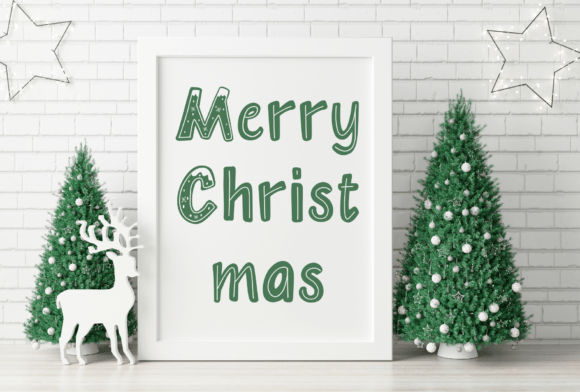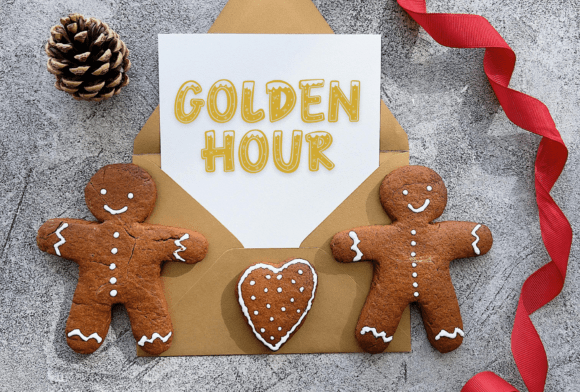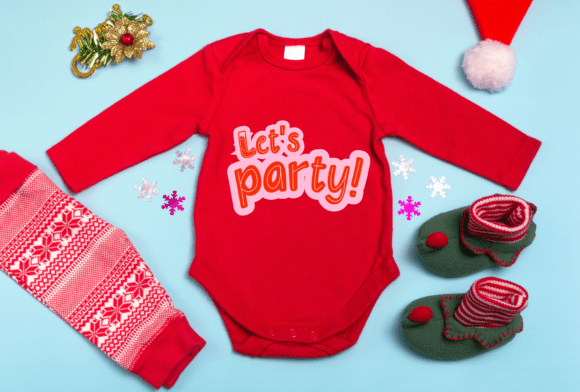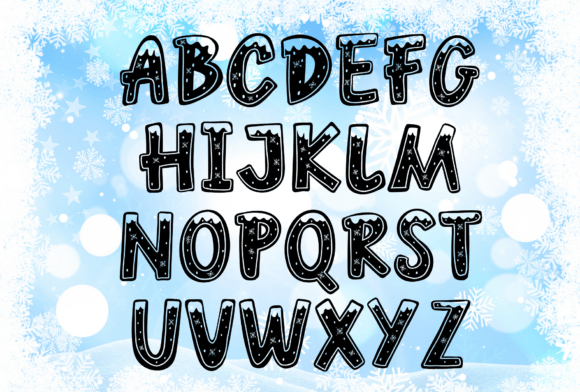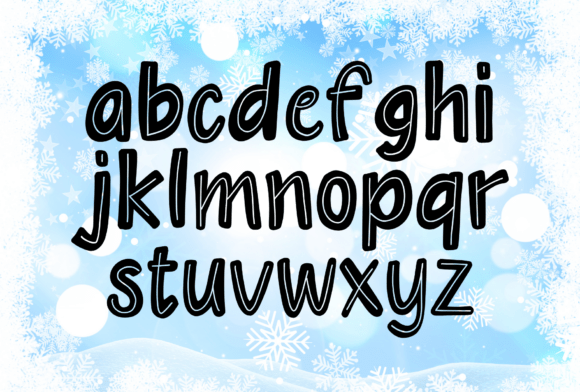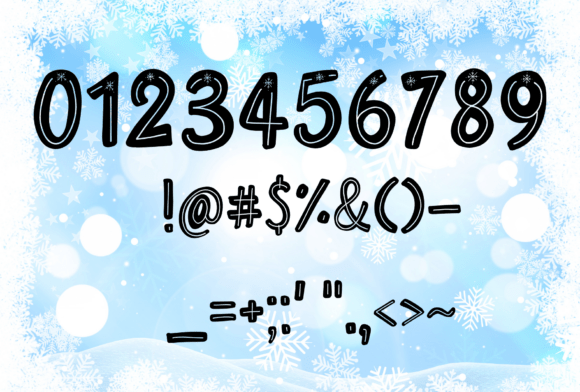
Bring Winter Wonderland to Your Designs with Happy Snowing Font
As the winter season approaches, designers and crafters are on the lookout for the perfect typography to add a touch of festive cheer to their creative projects. Look no further than Happy Snowing Font, a delightful display typeface that embodies the joy and charm of winter. Inspired by the magic of falling snow, frosty edges, and playful holiday vibes, this fun and festive font is sure to bring a smile to your face and warmth to your designs.
What Makes Happy Snowing Font So Special?
Happy Snowing Font is more than just a pretty typeface – it’s an experience. Each letter is carefully designed with delightful snow-caps, tiny snowflakes, and rounded shapes, making the text feel warm, friendly, and truly seasonal. The result is a high-quality font that’s perfect for injecting a cheerful, snowy touch into any seasonal material. Whether you’re creating Christmas cards and holiday party invitations, classroom materials and kids’ activities, posters, stickers, and product packaging, or social media graphics and festive branding, Happy Snowing Font is the perfect choice.
Key Features of Happy Snowing Font
- Fully Editable Colors: Change the color of the font to match your design theme, giving you complete creative control.
- High-Quality Display Lettering: Ideal for both printing and digital use, Happy Snowing Font is designed to shine in any application.
- Perfect for Seasonal Promotions: Add a touch of winter magic to your festive branding and seasonal promotions with this must-have typeface.
Endless Design Possibilities with Happy Snowing Font
The versatility of Happy Snowing Font is one of its most appealing features. Imagine creating:
- Christmas cards and holiday party invitations that set the tone for a festive celebration
- Classroom materials and kids’ activities that bring a touch of winter wonderland to learning
- Posters, stickers, and product packaging that showcase your brand’s personality and style
- Social media graphics and festive branding that sparkle with winter magic
Why Choose Happy Snowing Font?
In a world where design trends come and go, Happy Snowing Font stands out as a timeless and versatile choice. Here are just a few reasons why designers and crafters are falling in love with this delightful typeface:
- Unique and Eye-Catching: Happy Snowing Font adds a touch of personality to any design, making it perfect for those who want to stand out from the crowd.
- Easy to Use: With its universal compatibility and fully editable colors, Happy Snowing Font is a breeze to incorporate into your workflow.
- Seasonal and Timeless: While Happy Snowing Font is perfect for winter and the holiday season, its charm and character ensure it will remain a favorite for years to come.
Bring the joy and charm of winter to your creative projects with Happy Snowing Font, a fun and festive display typeface that’s sure to delight. With its unique design, key features, and endless possibilities, this must-have typeface is the perfect addition to your design toolkit. So why wait? Let your designs sparkle with winter magic using Happy Snowing Font – the ultimate typeface for the holiday season.